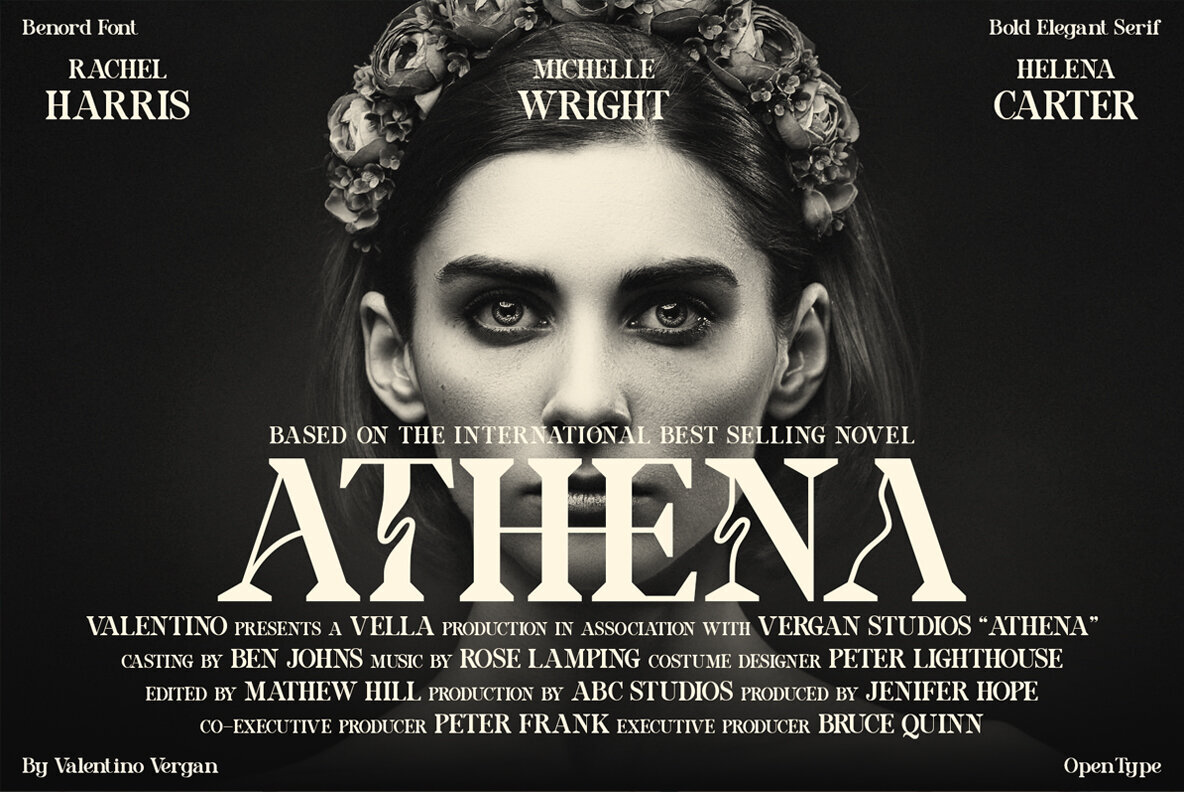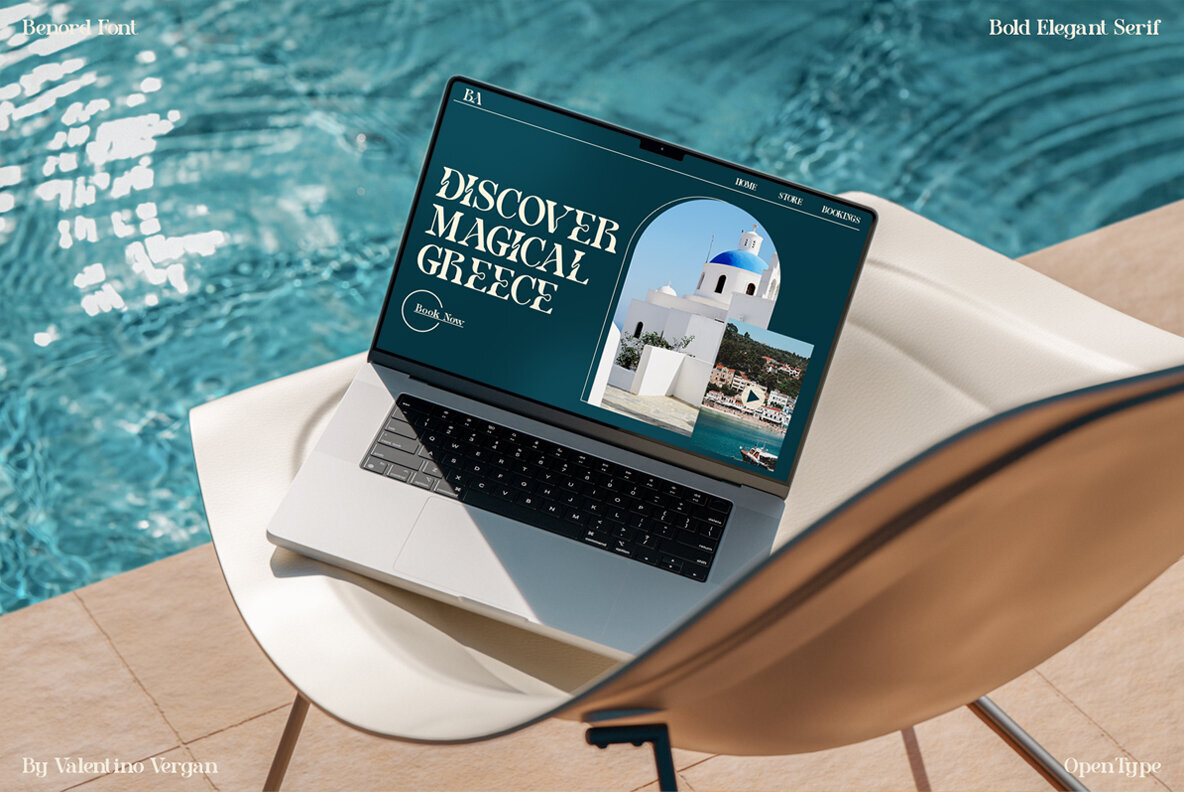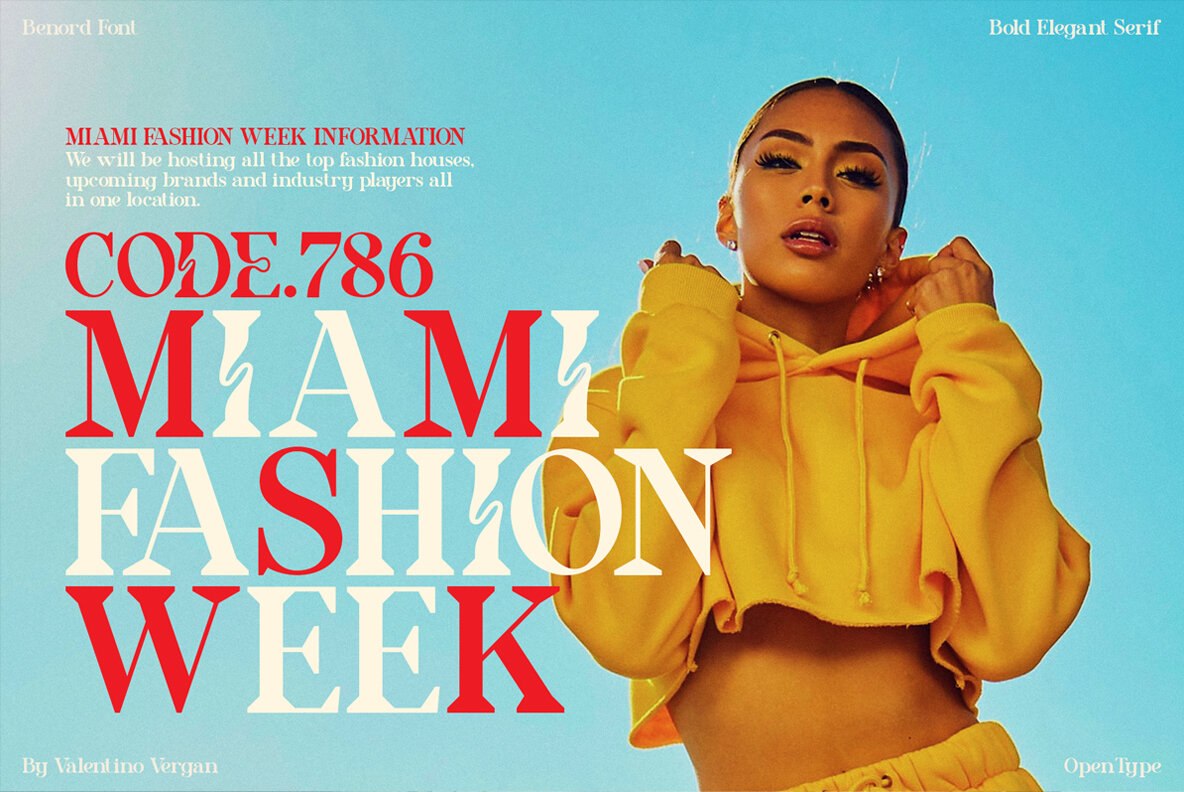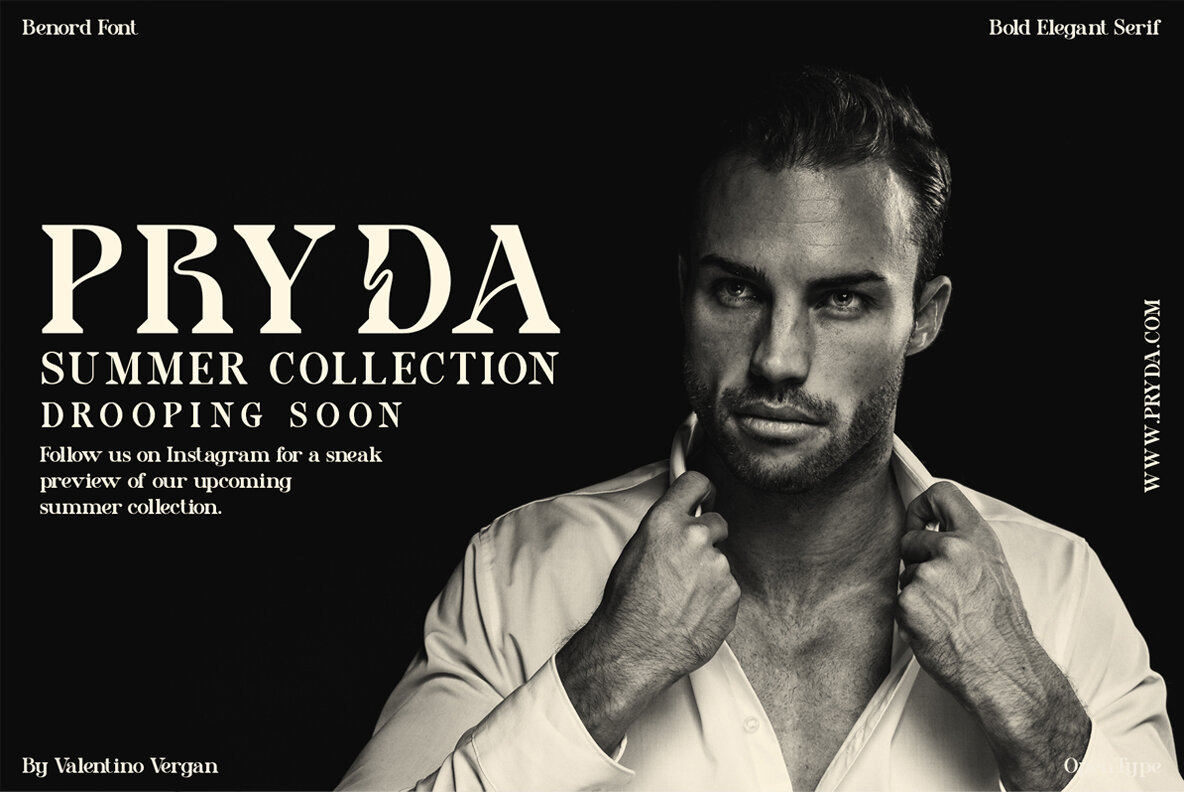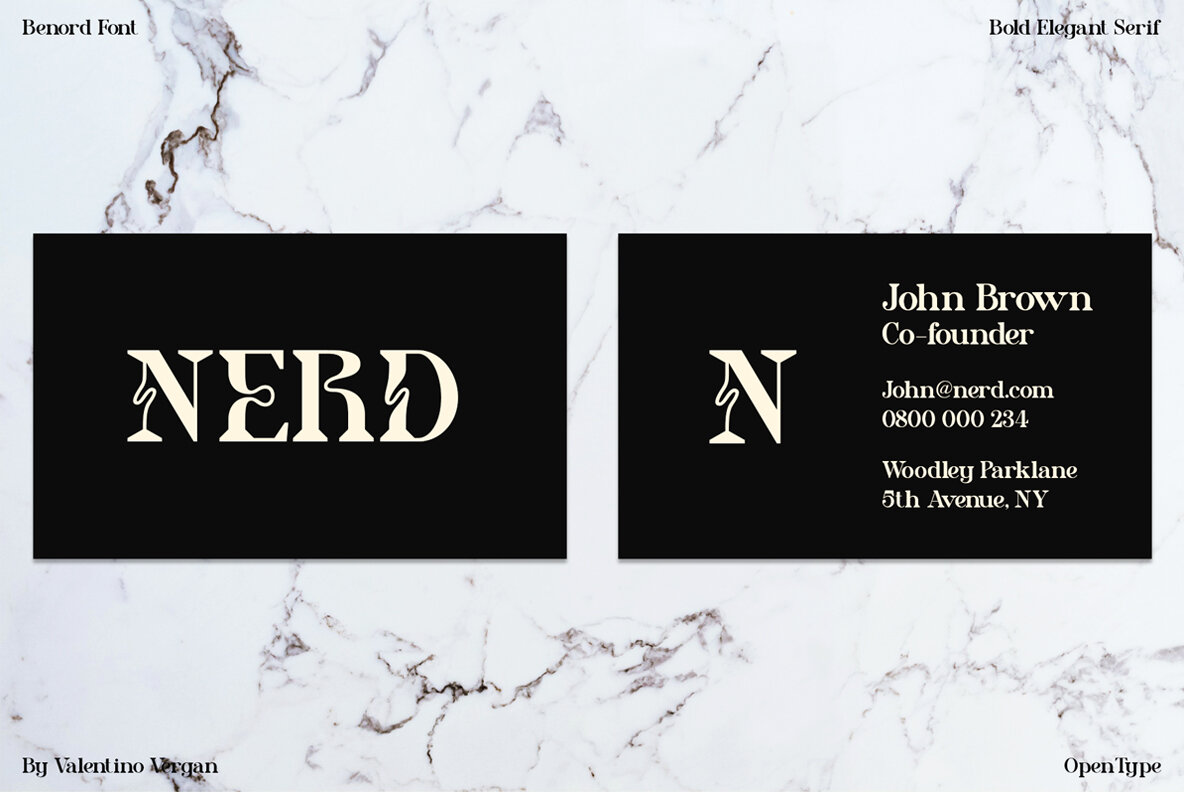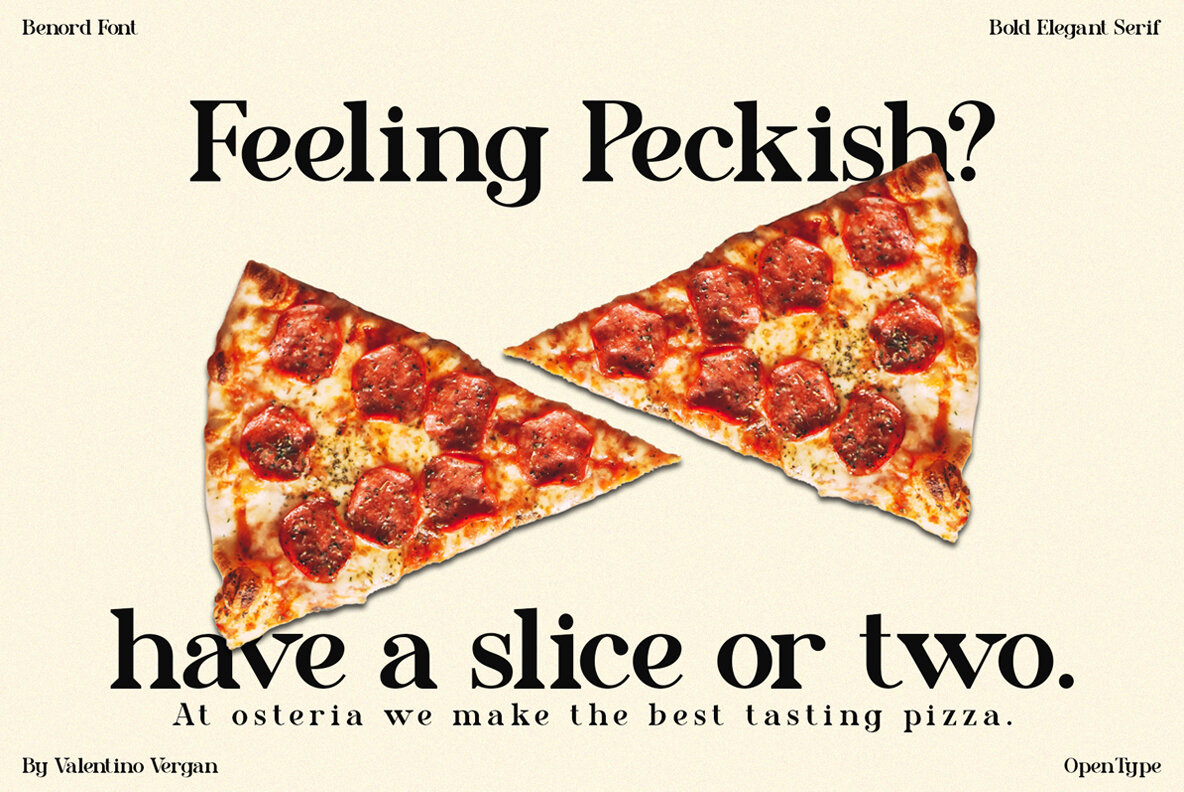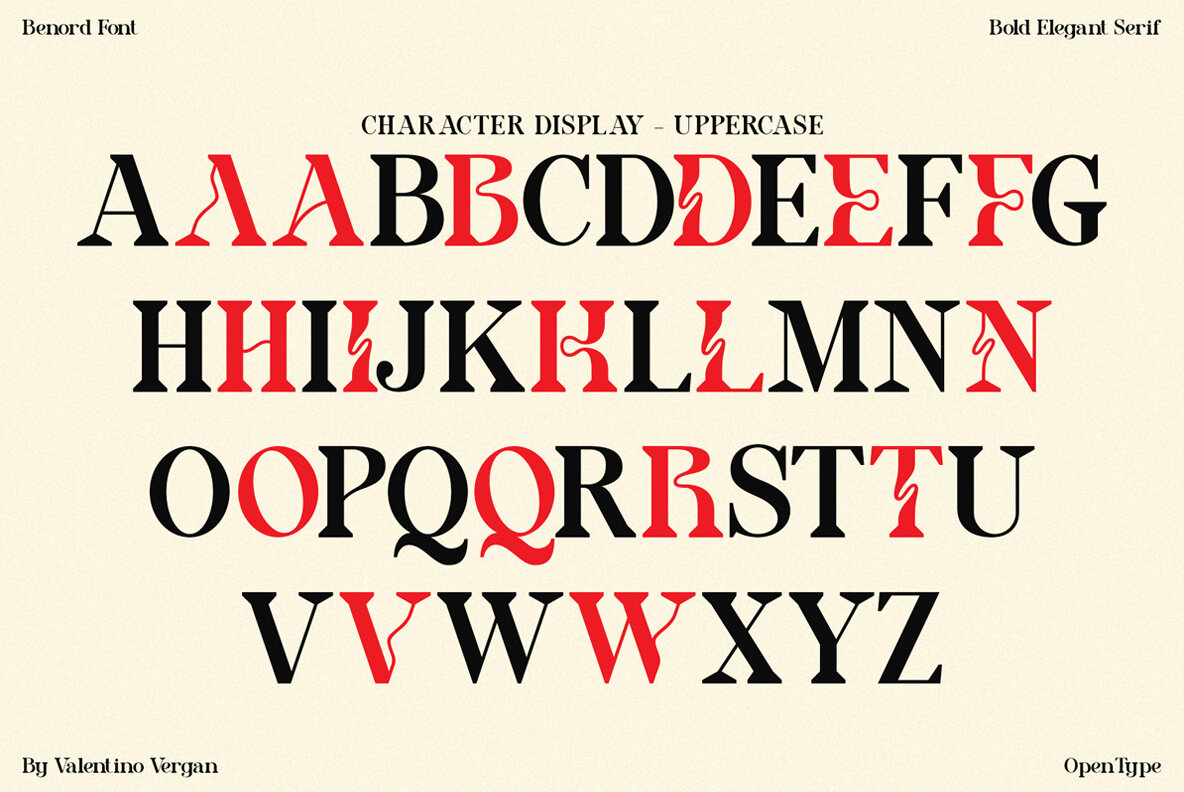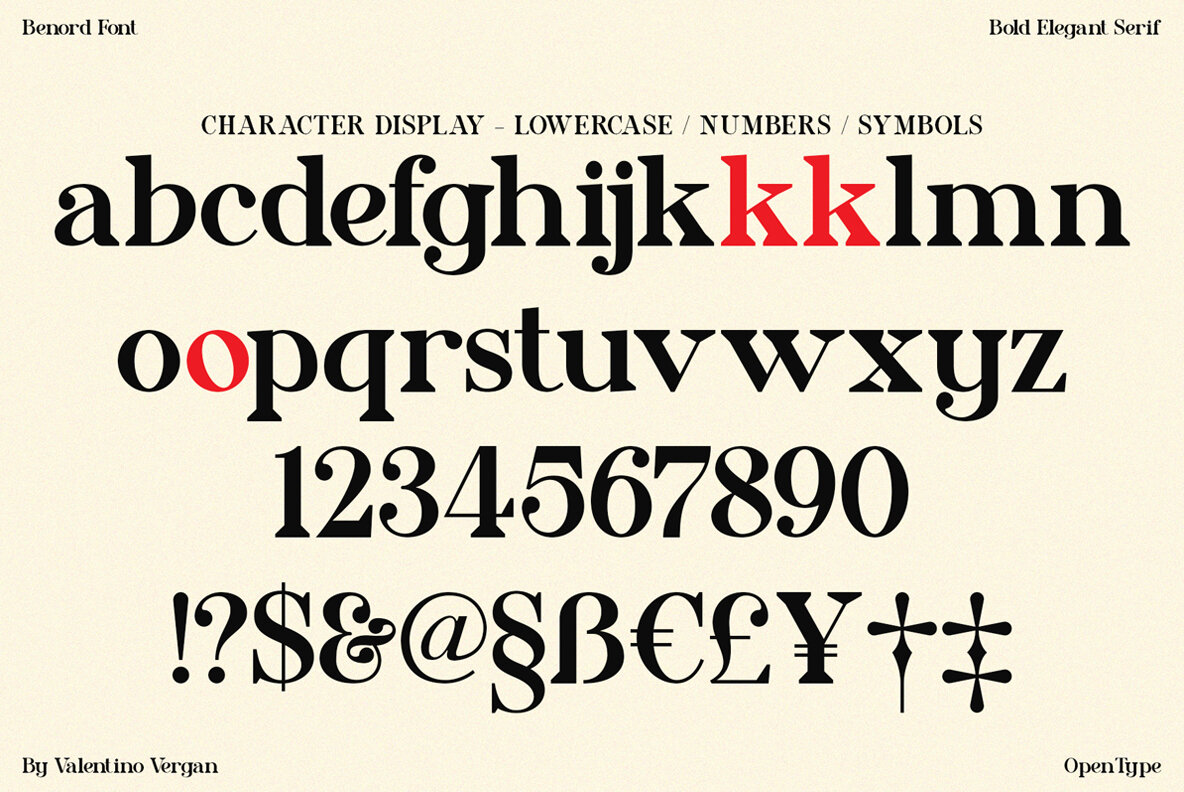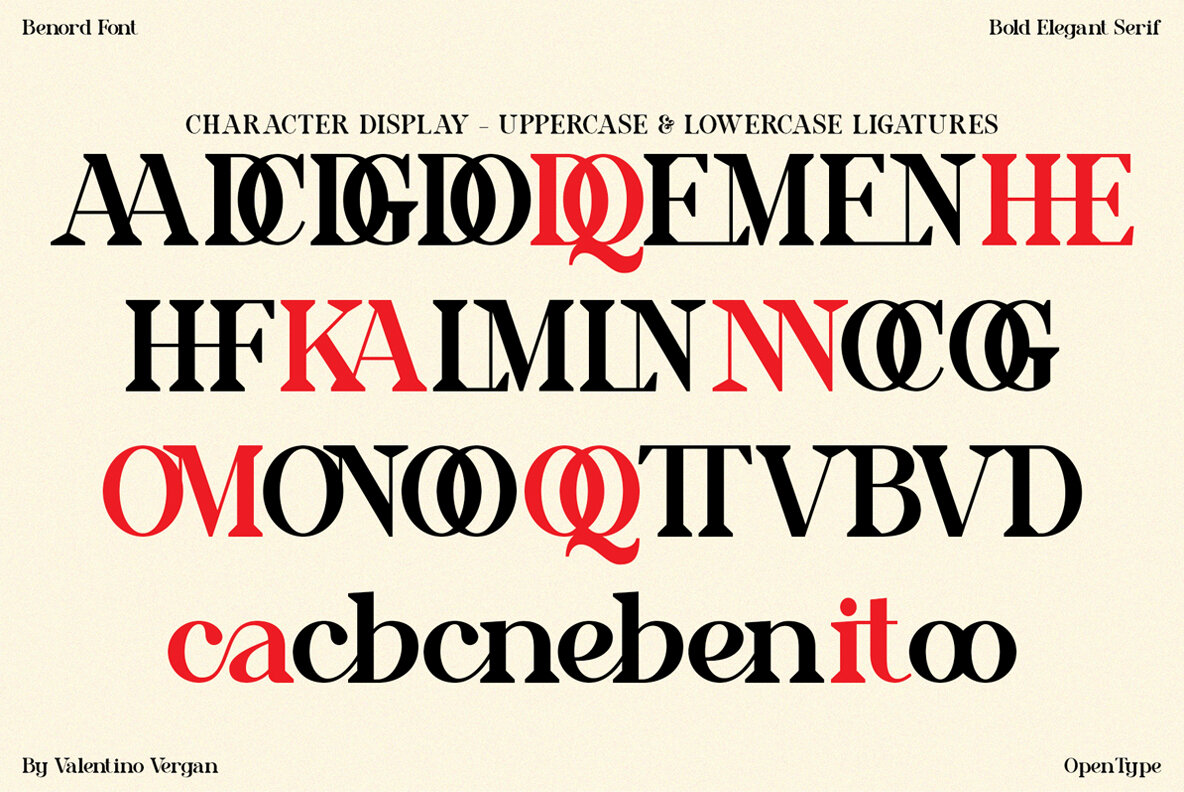
Benord Font
Benord is a bold elegant modern serif, it comes with stylistic alternates and creative ligatures. The idea behind Benord was to modernise an old style serif for today’s design industry. The main aim was too creative a serif take has a nostalgic vintage feel with a modern twist. Benord is an ideal font for graphic designs and advertising agencies who are looking to create beautiful logos and designs. Benord was designed to look great in both large and small type settings, making it perfect for cover and layouts. With its great multilingual support, Benord can produce a large number of different languages.